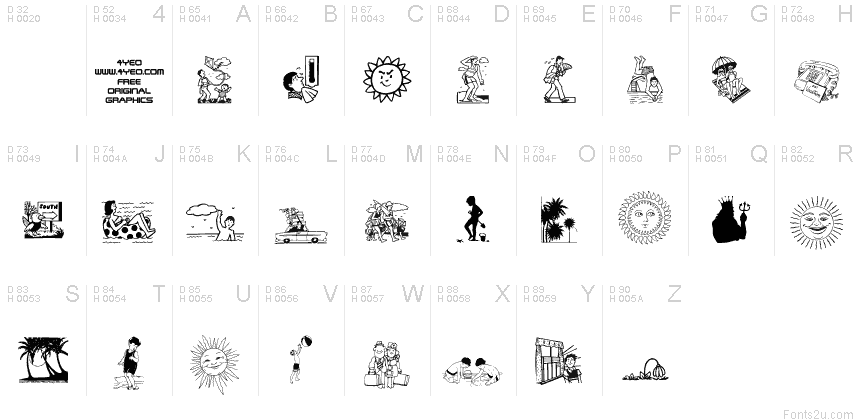
4YEOsummer
4YEOsummer font by 4yeo is a free dingbat typeface packed with hand-drawn summer scenes and sun-drenched icons. Think cartoon surfers, palm trees, smiling suns, crowds at the beach, and playful vacation vignettes—all in bold black lines that stamp onto the page like rubber-ink impressions. Instead of hunting for stock art, you can tap out a whole beach story straight from your keyboard.
Using 4YEOsummer, you can quickly build artwork for party flyers, travel posters, kids’ camp materials, social media graphics, stickers, and T-shirt designs. The illustrations have a lively, slightly retro comic feel that holds up well when enlarged, so don’t be shy about going big. This free font pairs especially well with a chunky sans serif set in all caps, letting the icons do the heavy lifting while the text stays clean and readable.